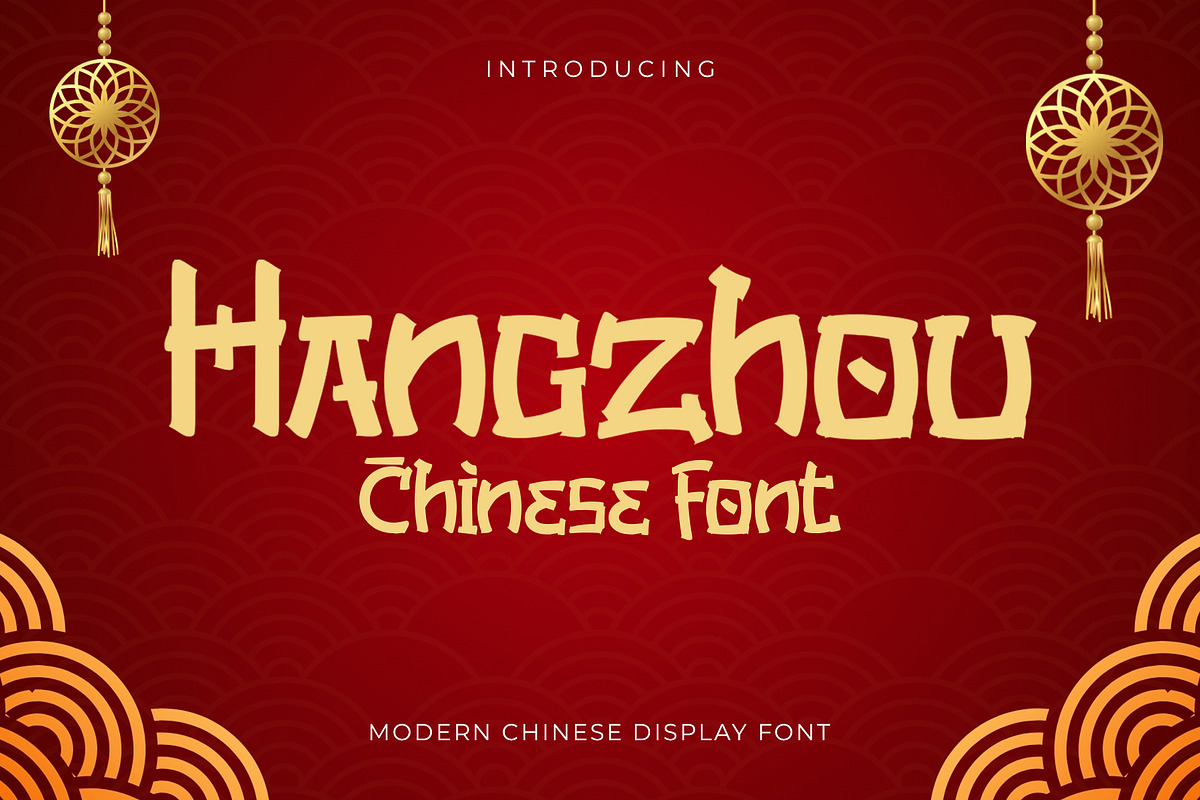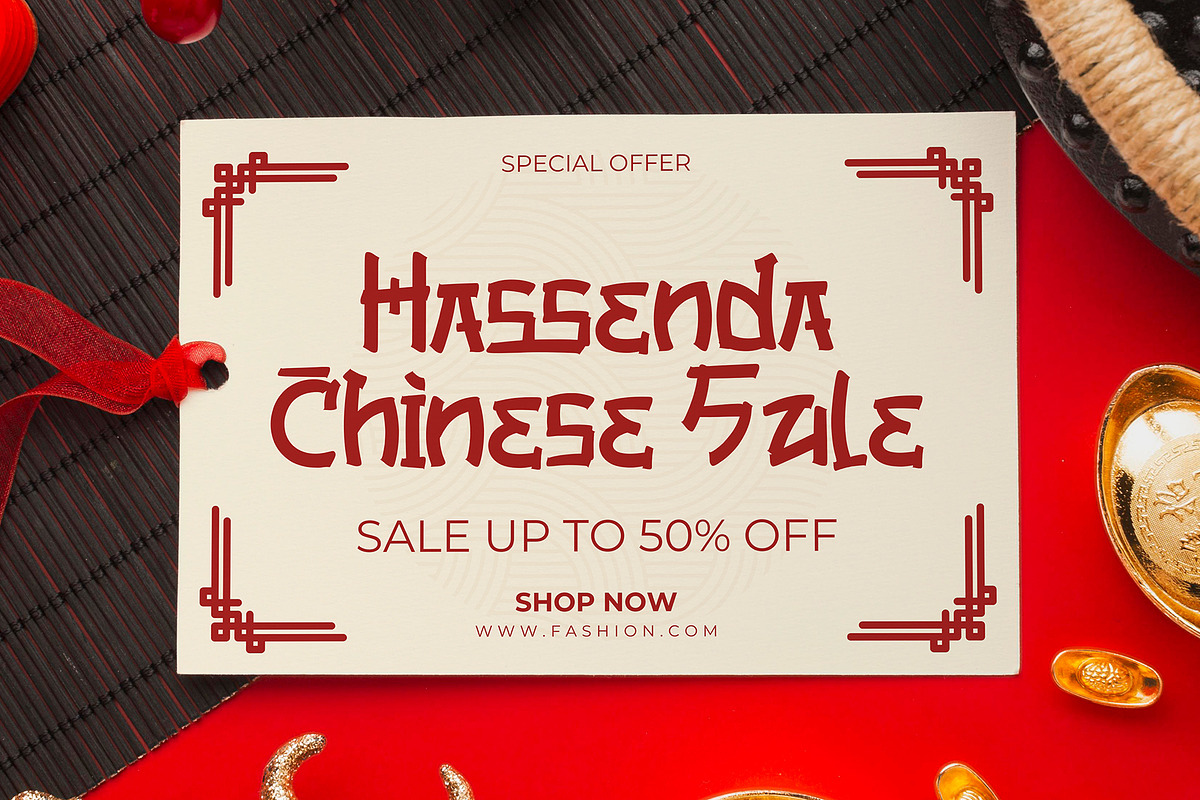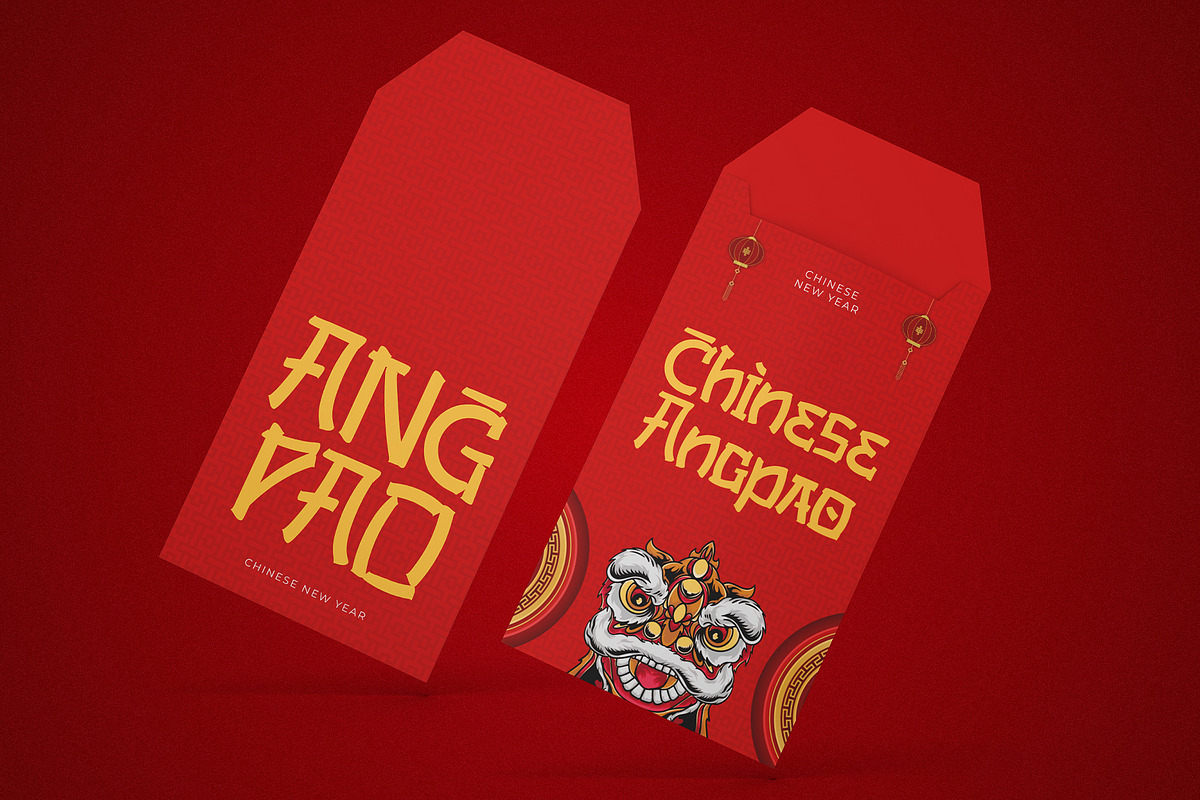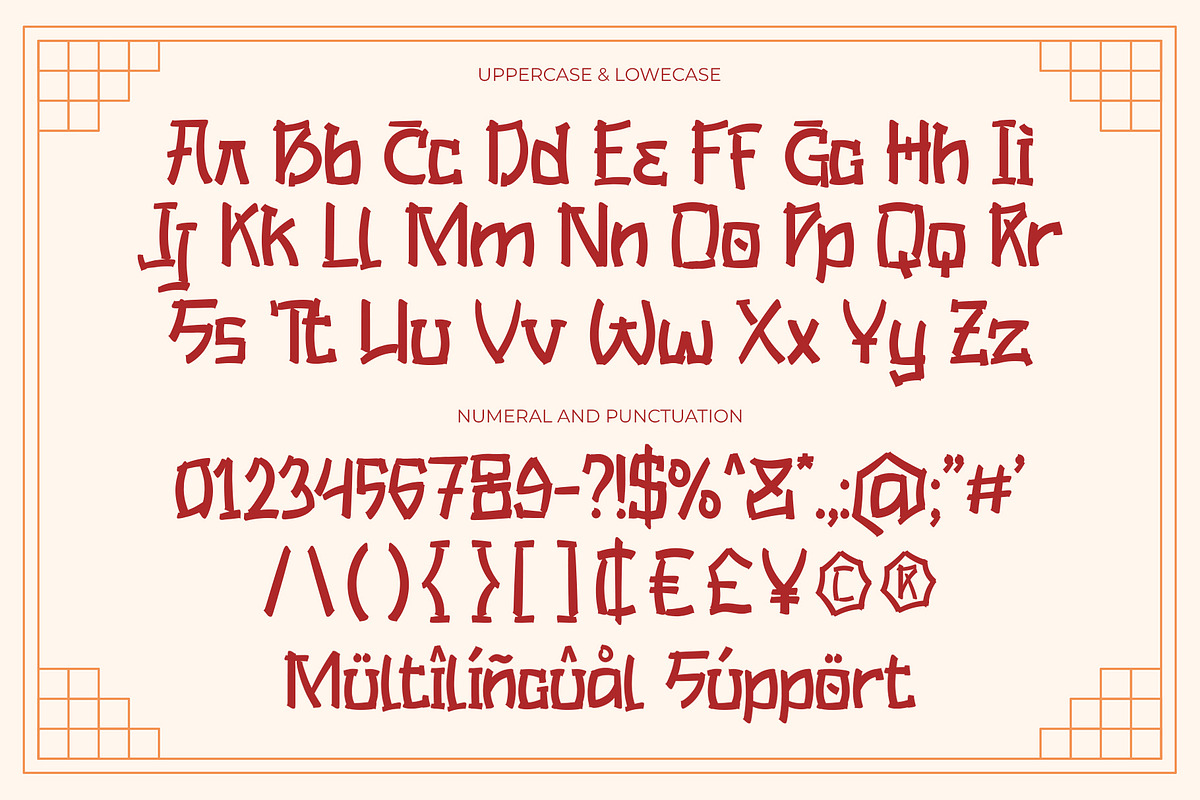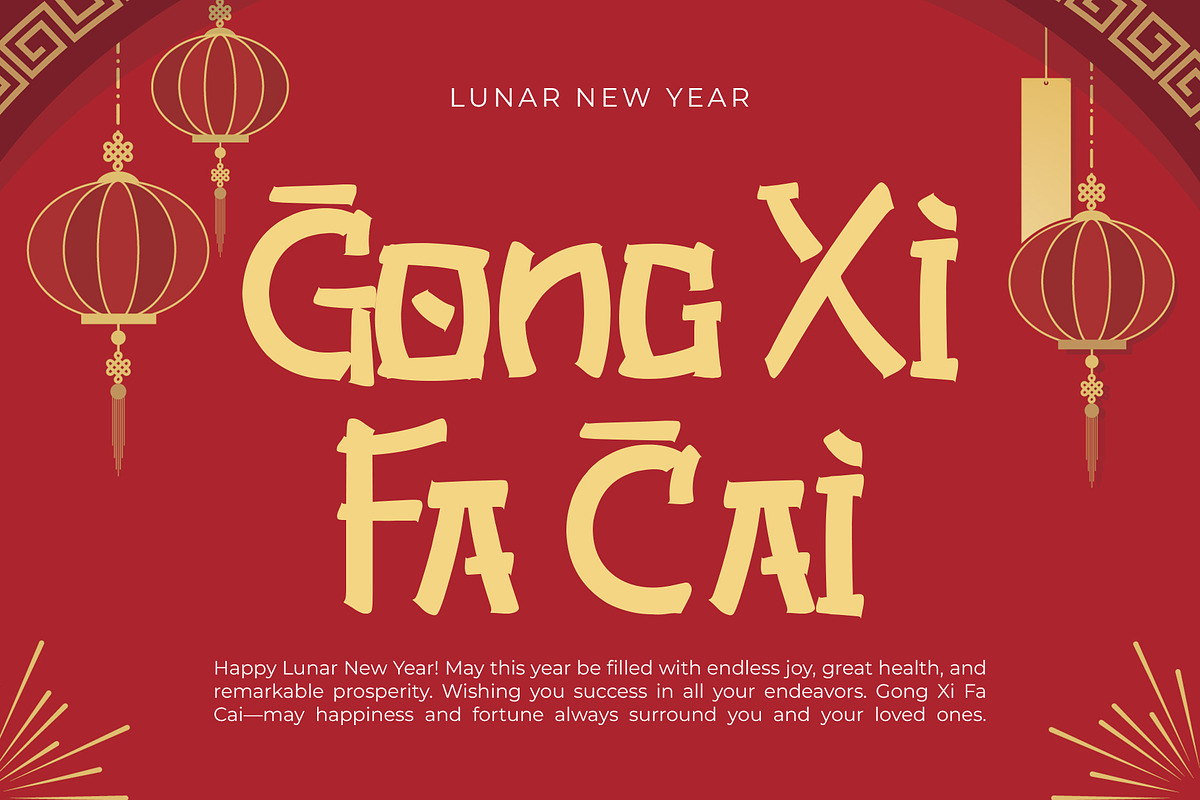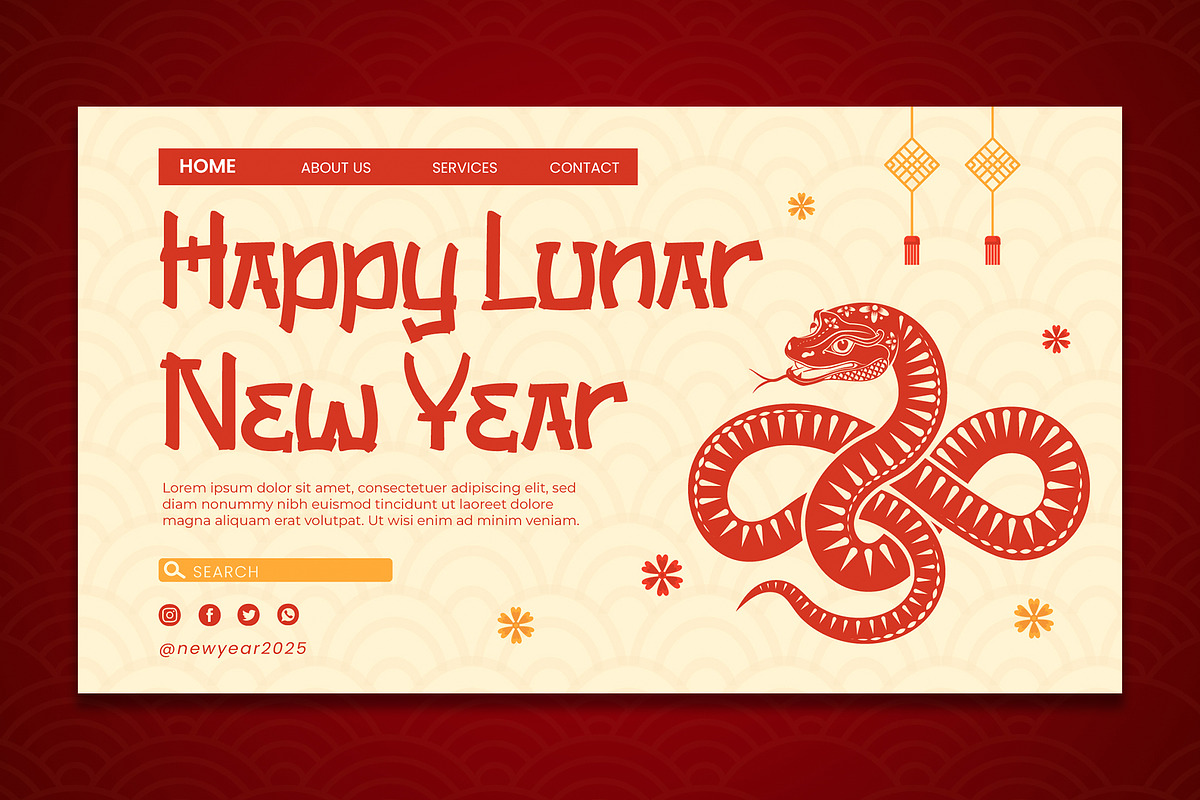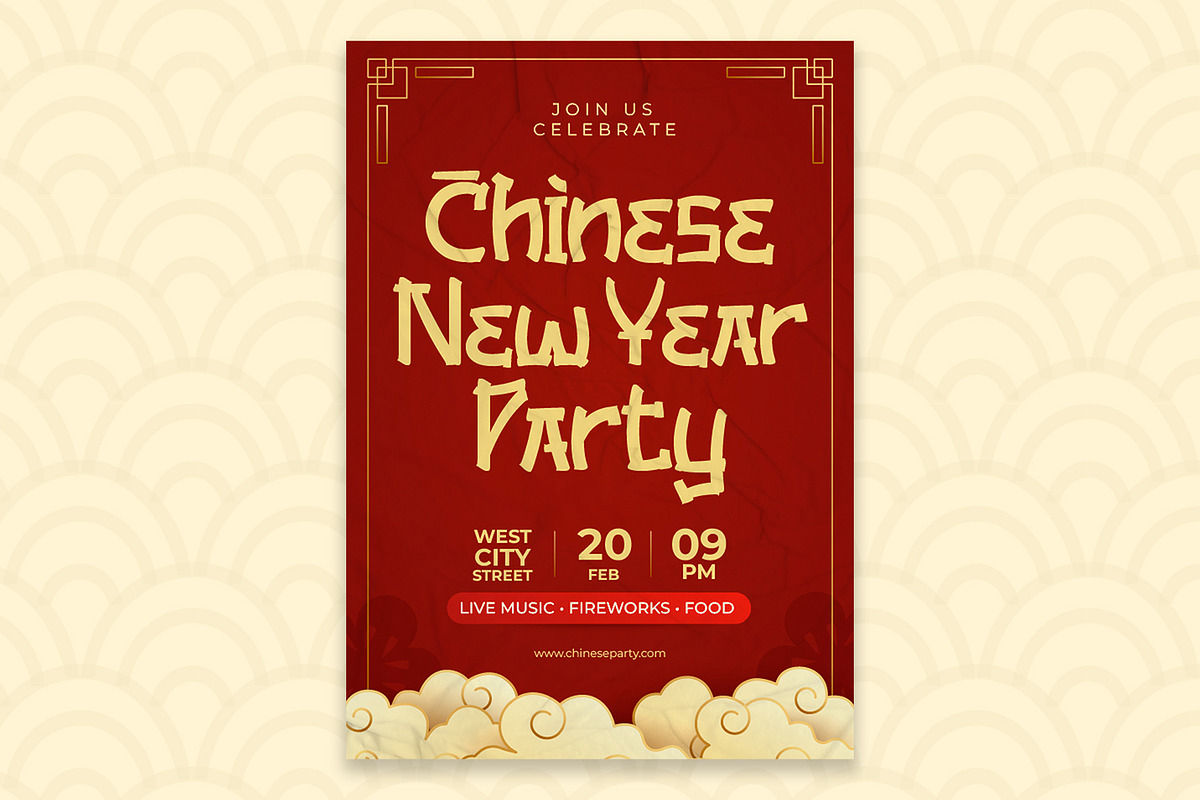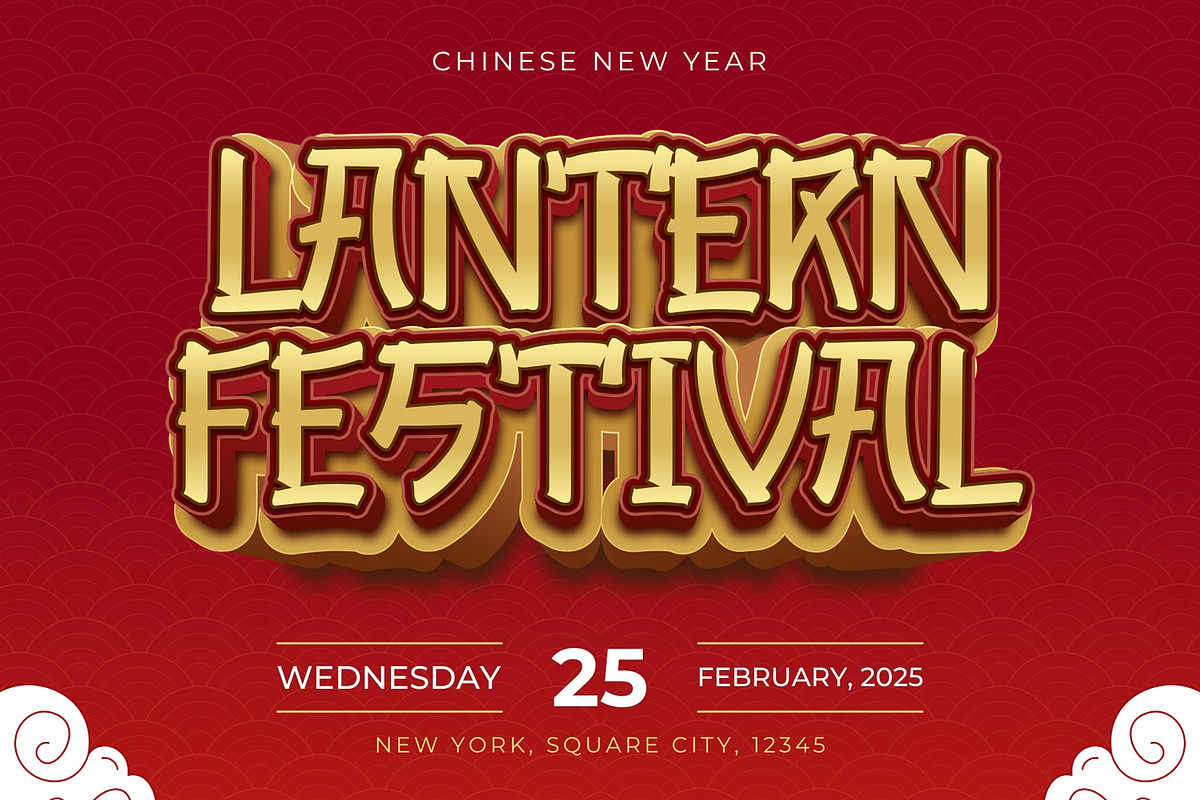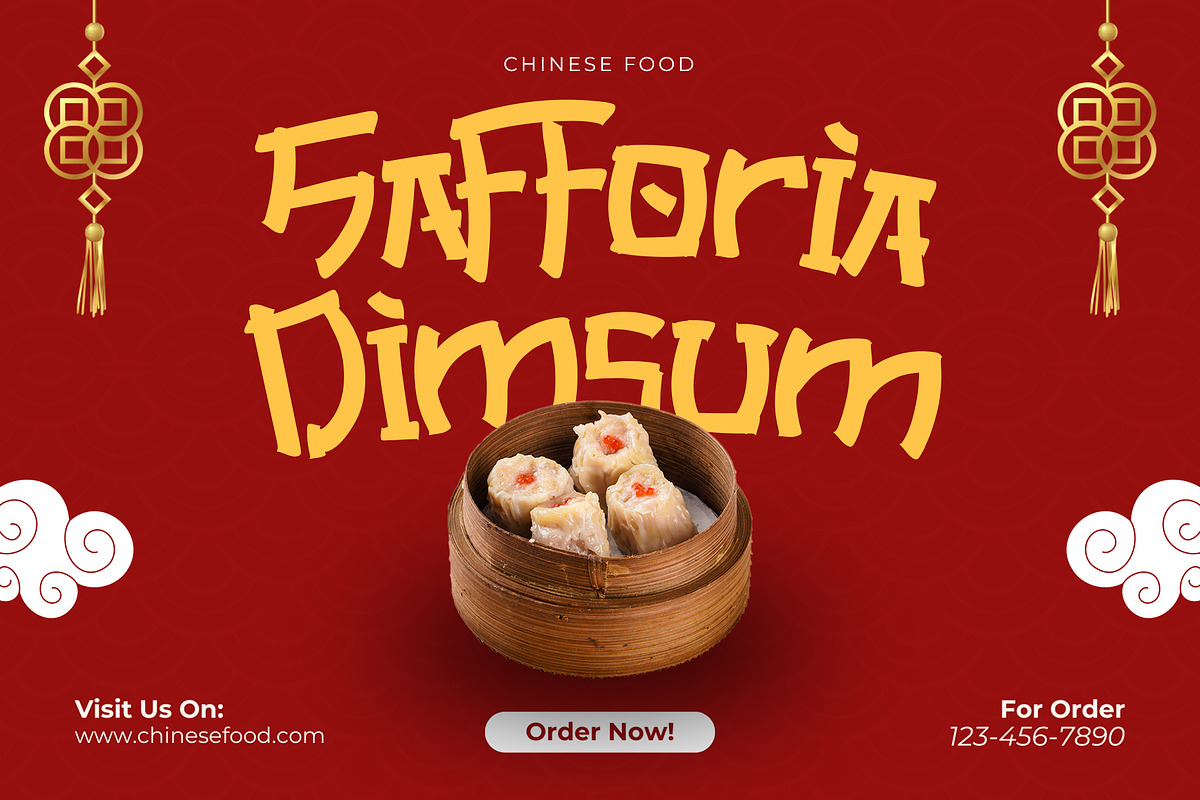
Hangzhou - Modern Chinese Font
Hangzhou is a modern display typeface inspired by Chinese calligraphy, traditional festival lettering, decorative brush forms, and contemporary Asian visual culture.
Its bold shapes, angular terminals, and handcrafted proportions create a distinctive character that feels energetic, cultural, and highly expressive. Hangzhou is designed for creative projects that need a strong East Asian-inspired visual identity while remaining clear and practical for modern layouts.
Hangzhou combines expressive brush-inspired details with a structured Latin display alphabet. The uppercase characters create bold and memorable headlines, while the lowercase forms offer a more casual rhythm for supporting titles and short phrases.
The typeface works beautifully with red and gold palettes, traditional wave patterns, lantern illustrations, festive ornaments, paper textures, and modern minimalist compositions. It is especially effective for Lunar New Year campaigns, restaurant identities, cultural posters, tourism graphics, packaging, and event promotions.
Hangzhou Chinese-inspired display font
Modern Chinese-inspired display style
Bold handcrafted letterforms
Brush-influenced curves and angular terminals
Strong cultural and festive personality
Uppercase and lowercase Latin alphabet
Complete numerals
Standard symbols and punctuation
Strong readability at medium and large sizes
Suitable for print and digital applications
Ideal for headlines, logos, titles, and short phrases
Works beautifully with red, gold, cream, and black palettes
Easy to combine with traditional ornaments and modern graphics
Pairs well with clean sans serif and readable serif fonts
Suitable for food, travel, cultural, and seasonal branding
Stylistic Alternates: alternate forms may be included, but the exact supported characters are not clearly identified in the supplied preview
Ligature Pairs: some connected character forms appear in the preview, but these specific 18 combinations are not clearly confirmed: st, br, cr, ct, fr, ist, op, or, ox, th, Tr, tt, wn, ff, fi, fl, ffi, ft
Multilingual Support: Western European characters with diacritics, including À, Á, Â, Ç, É, Ñ, Ø, Ü, and more
Chinese Hanzi characters are not confirmed in the supplied preview
Use Hangzhou at medium or large sizes to preserve its expressive shapes and handcrafted details. It works best for logos, headlines, event names, product titles, menus, and short promotional phrases rather than long paragraphs.
Pair it with a clean sans serif font for dates, descriptions, prices, captions, and supporting information. Red, gold, cream, and deep black color combinations can strengthen its festive Chinese-inspired personality.